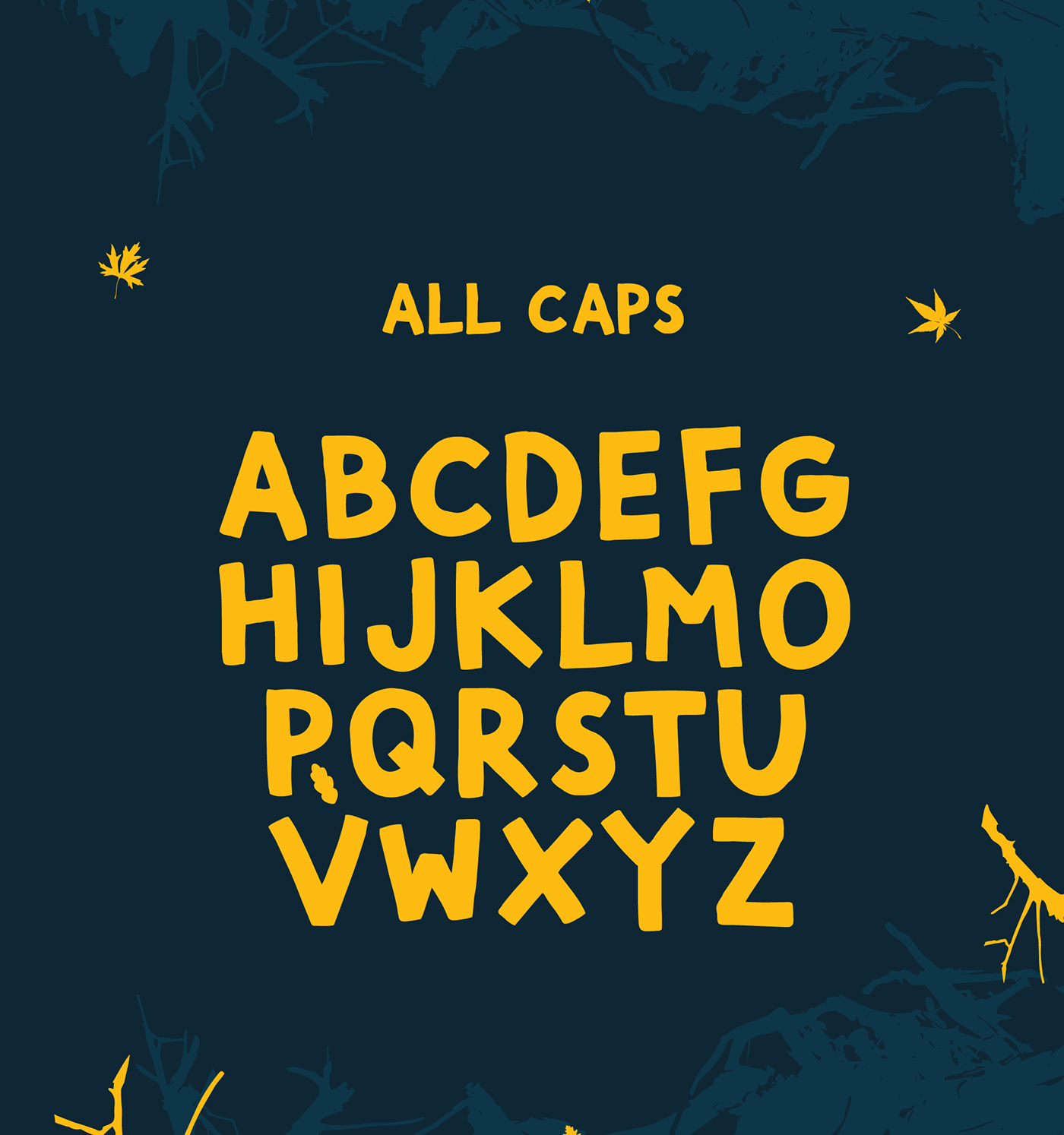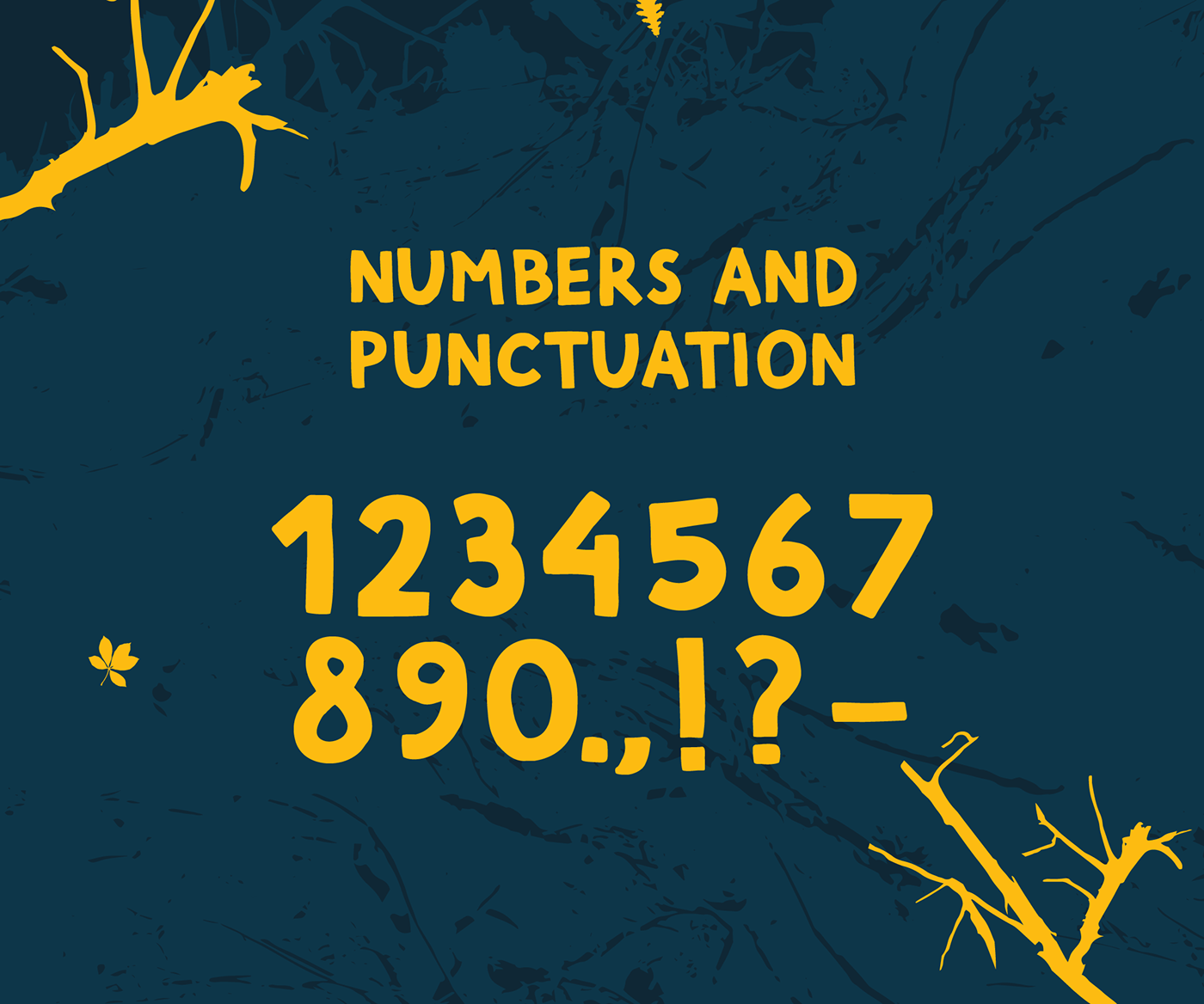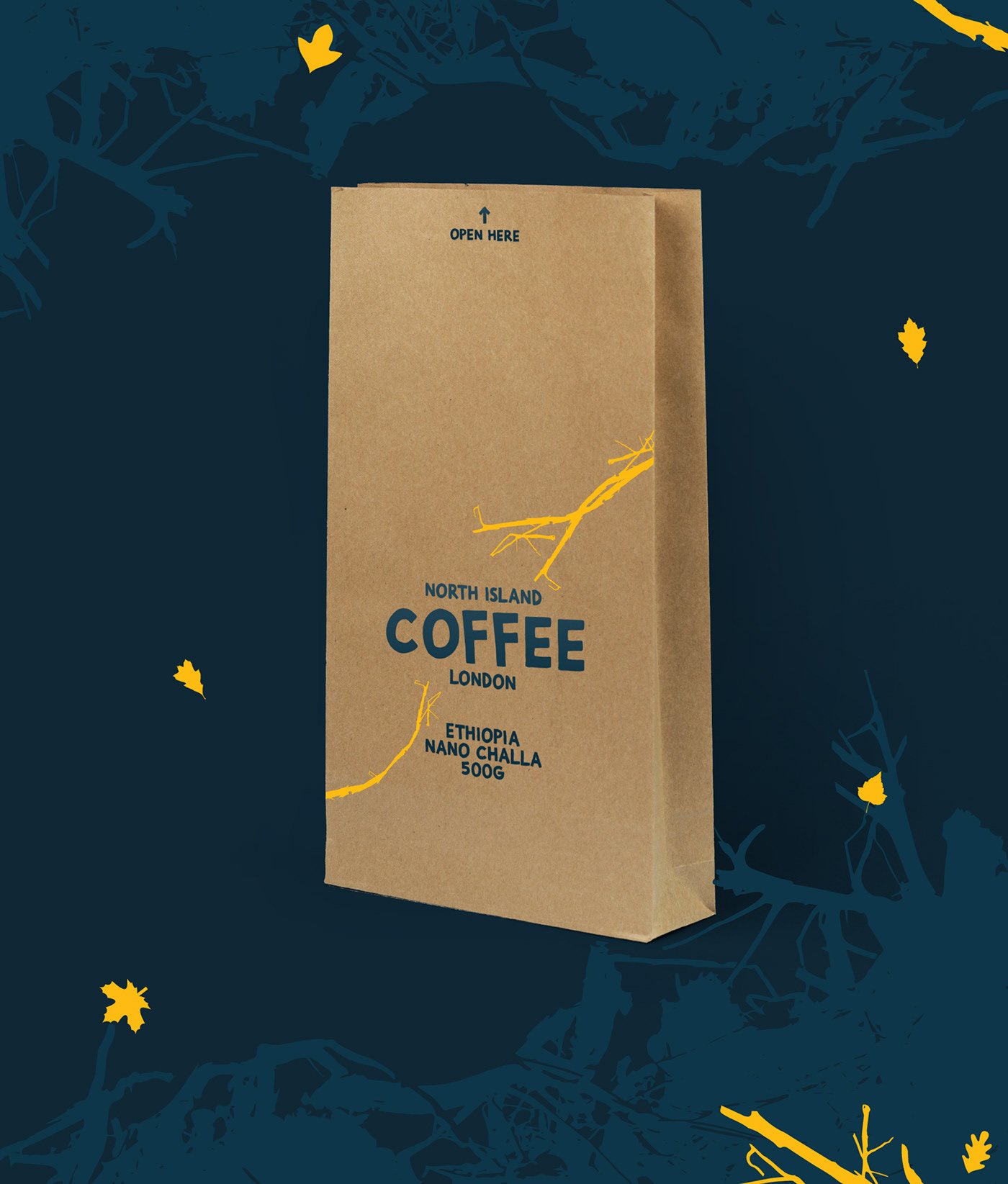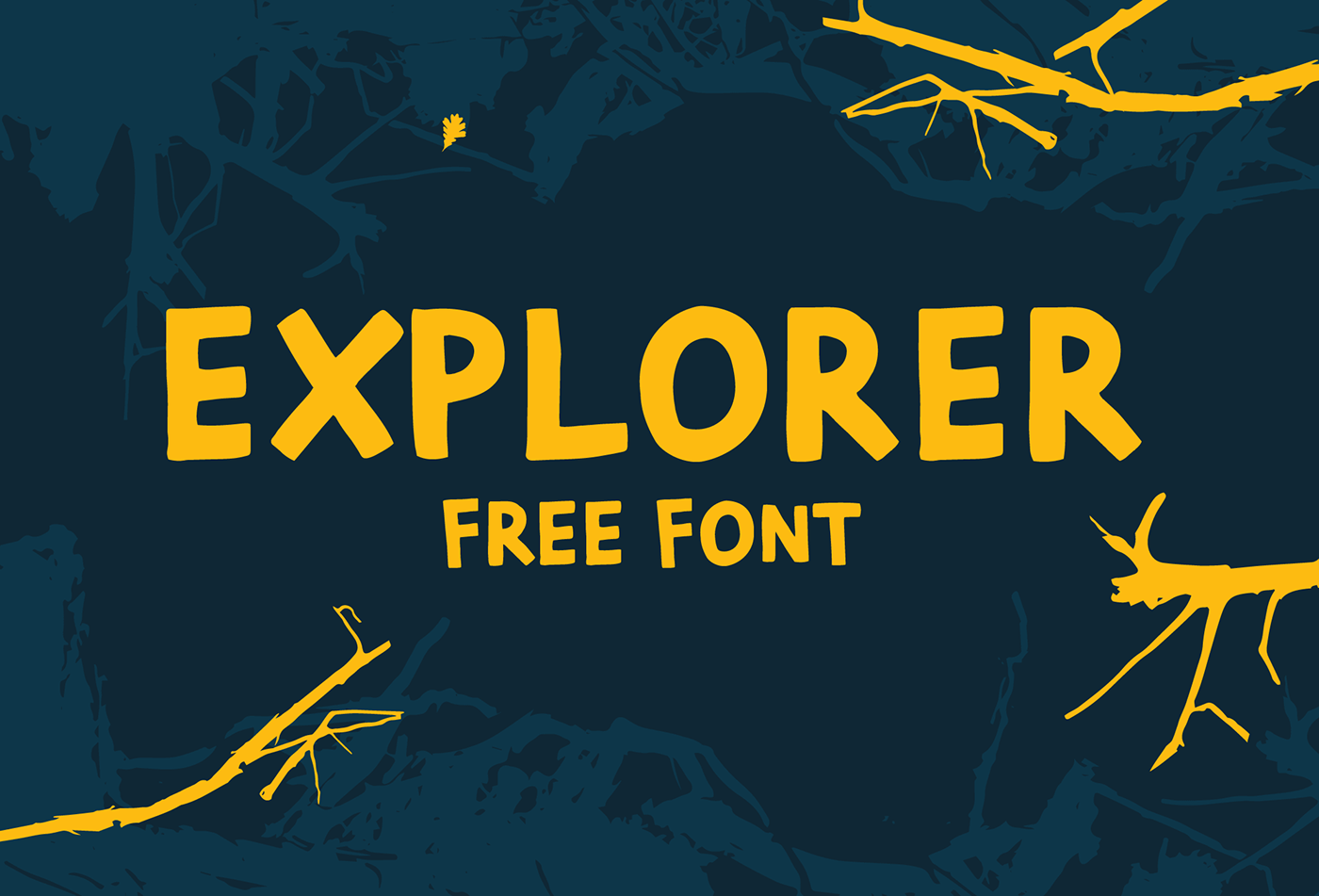
Explorer Font
Explorer is a hand drawn typeface inspired by hand painted signs found off the beaten track. It’s all drawn with the same brush, keeping the thickness of all details the same. The typeface is created by artist Kristaps Zelmenis fueled by his passion for exploring the great